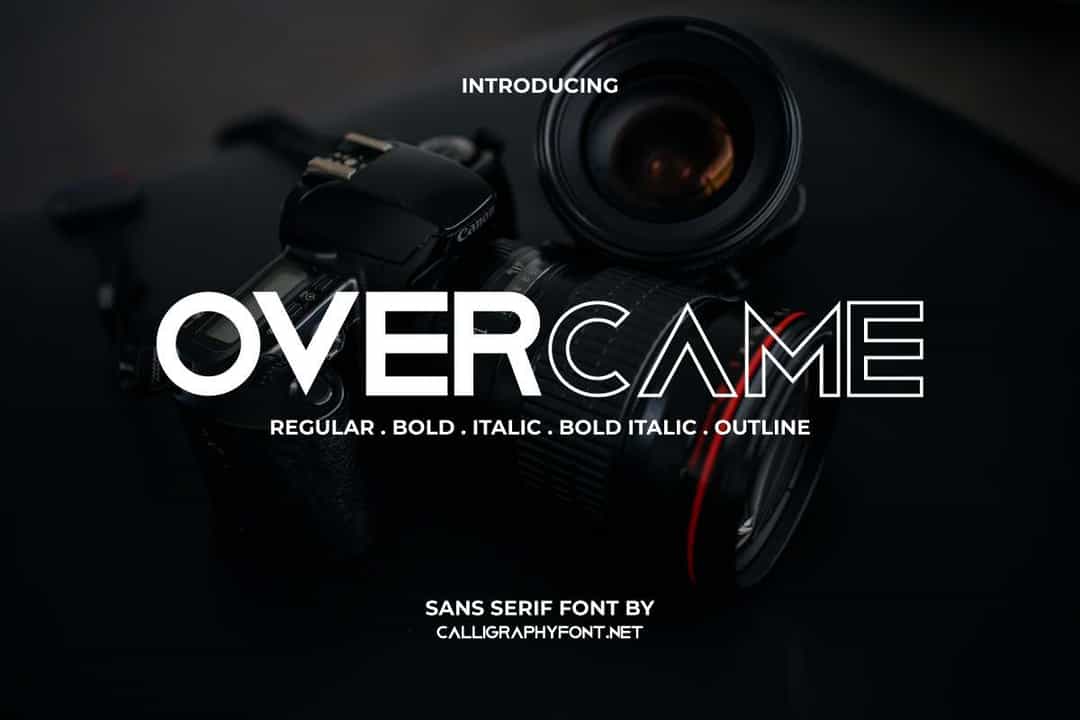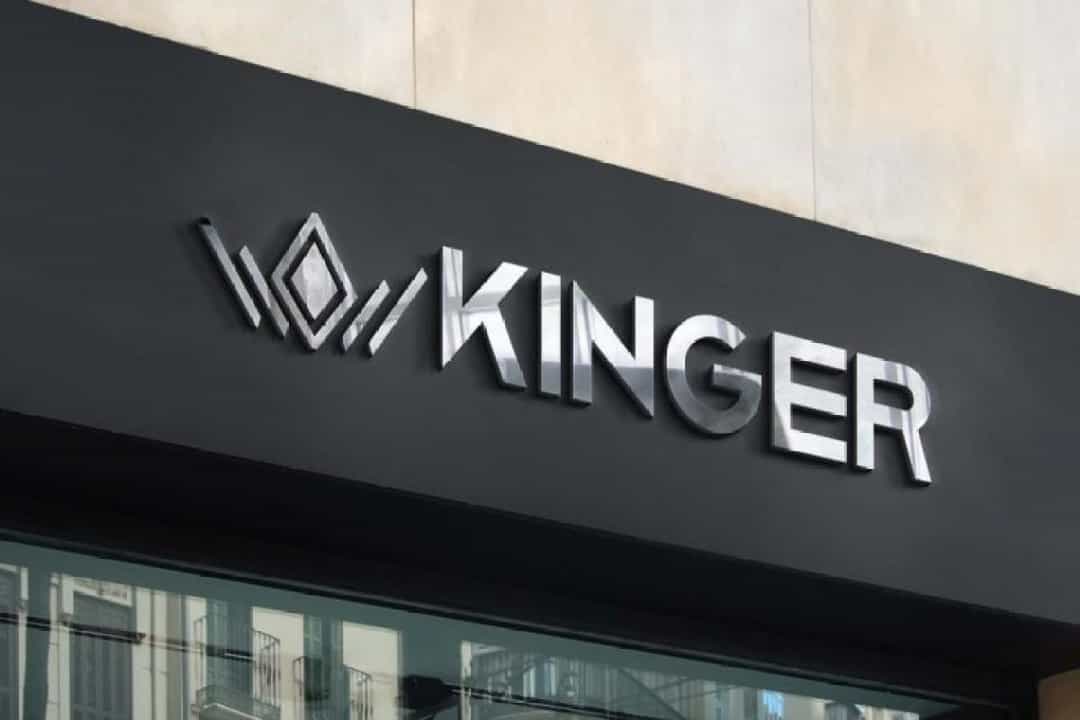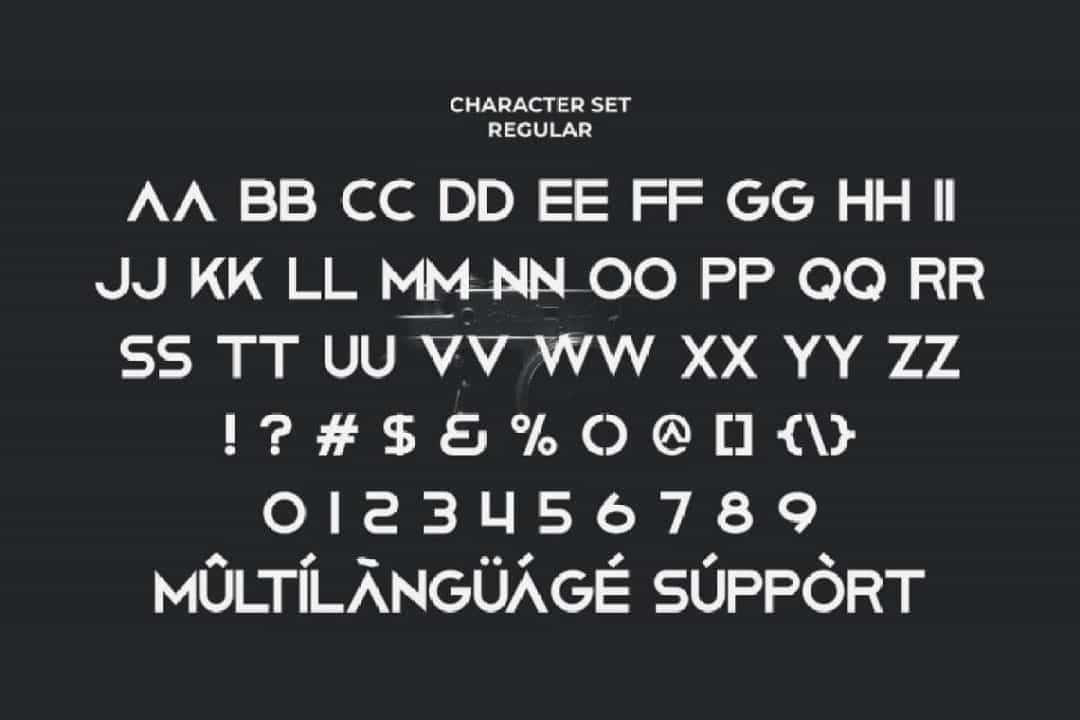
Overcame is a contemporary sans serif font with five different styles. This font boasts modern technological aesthetics with masculine characteristics. Perfect for logo, brandings, headlines and signage.